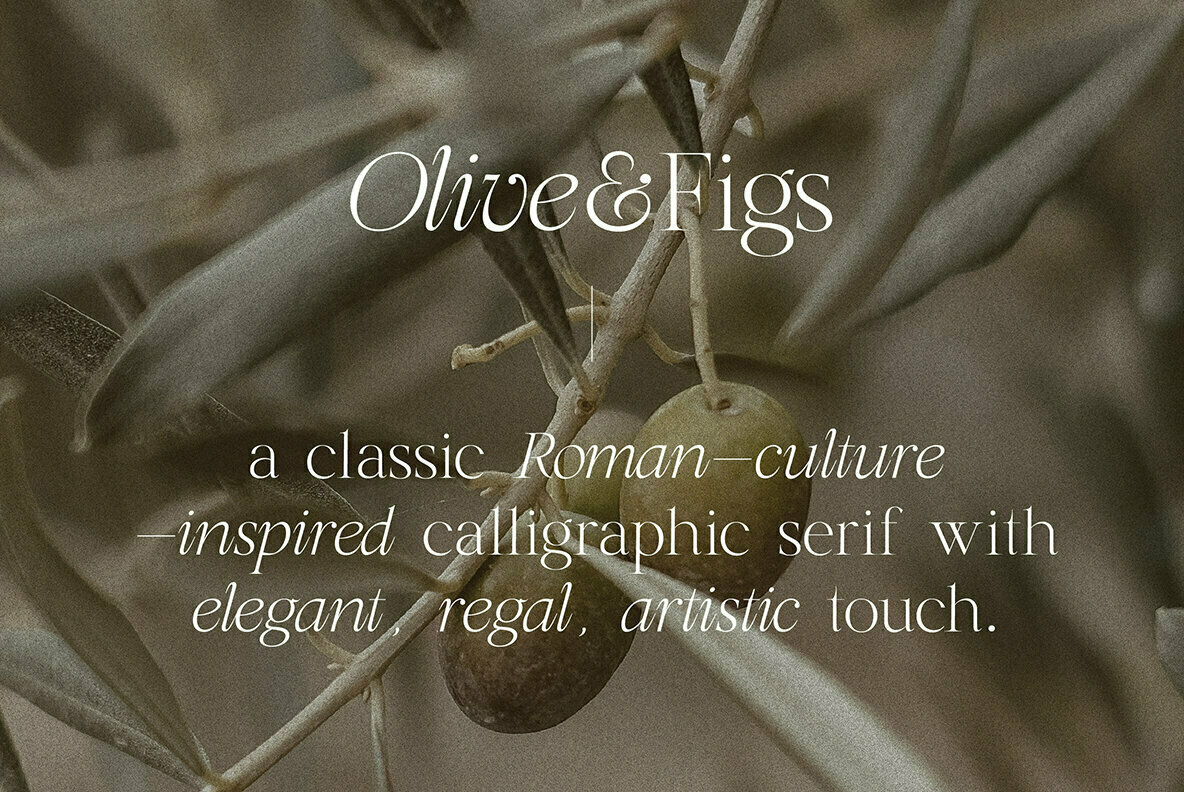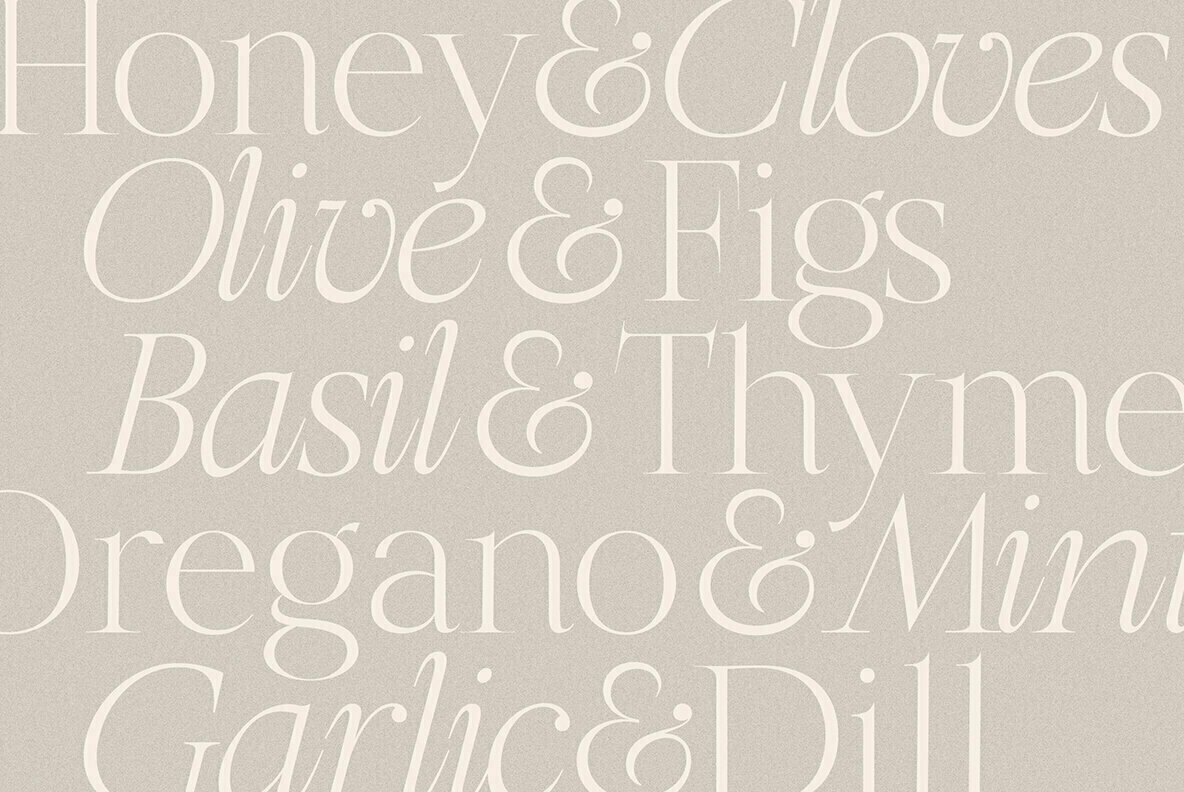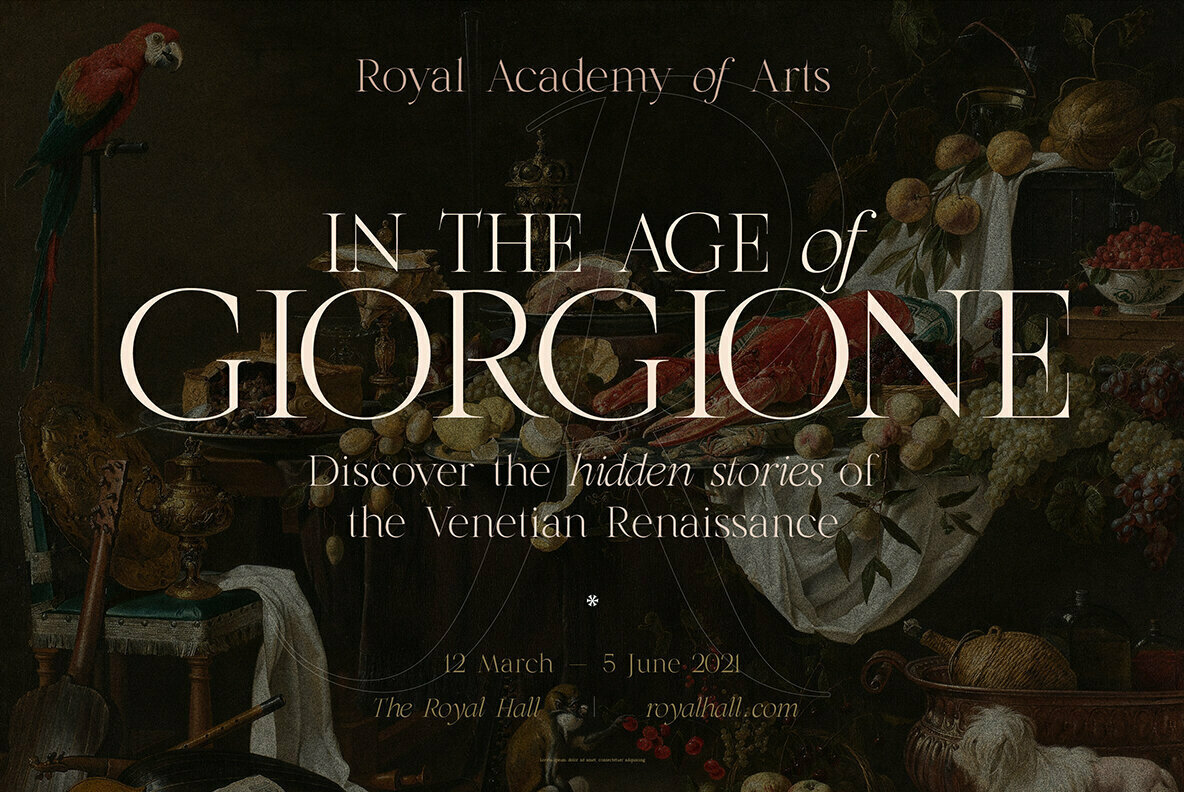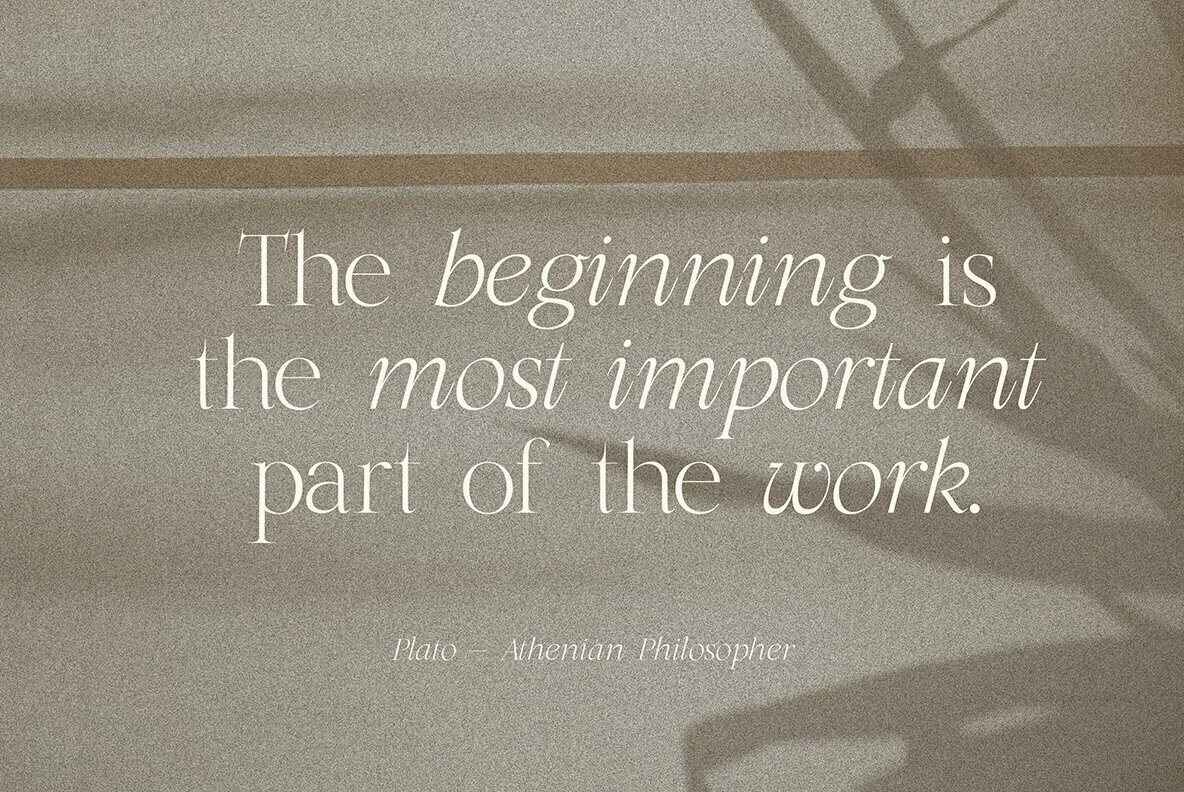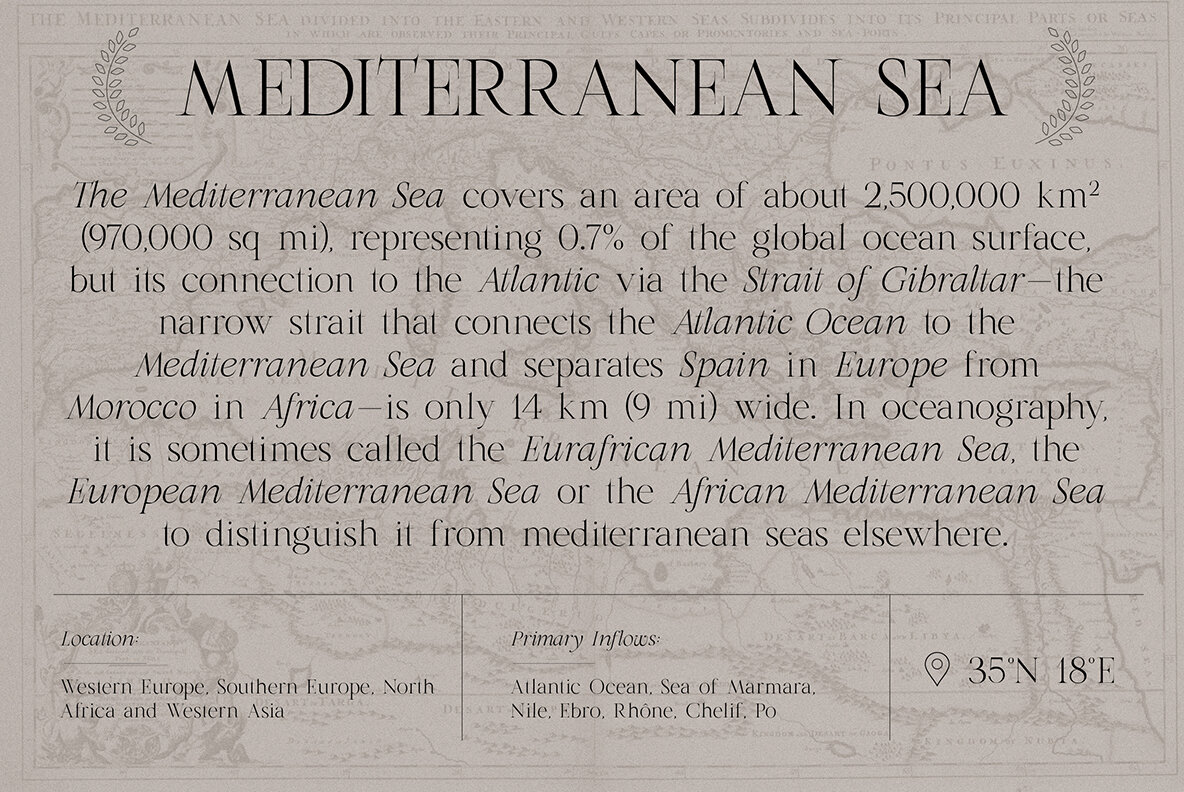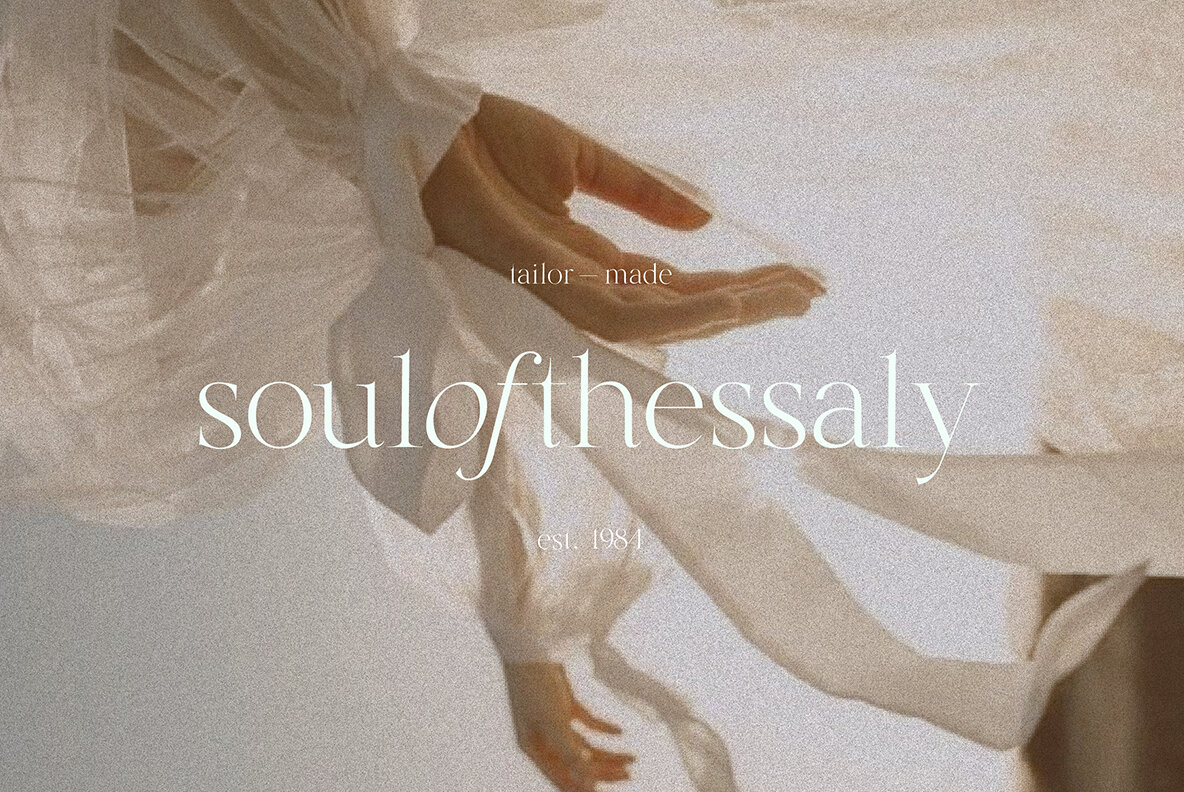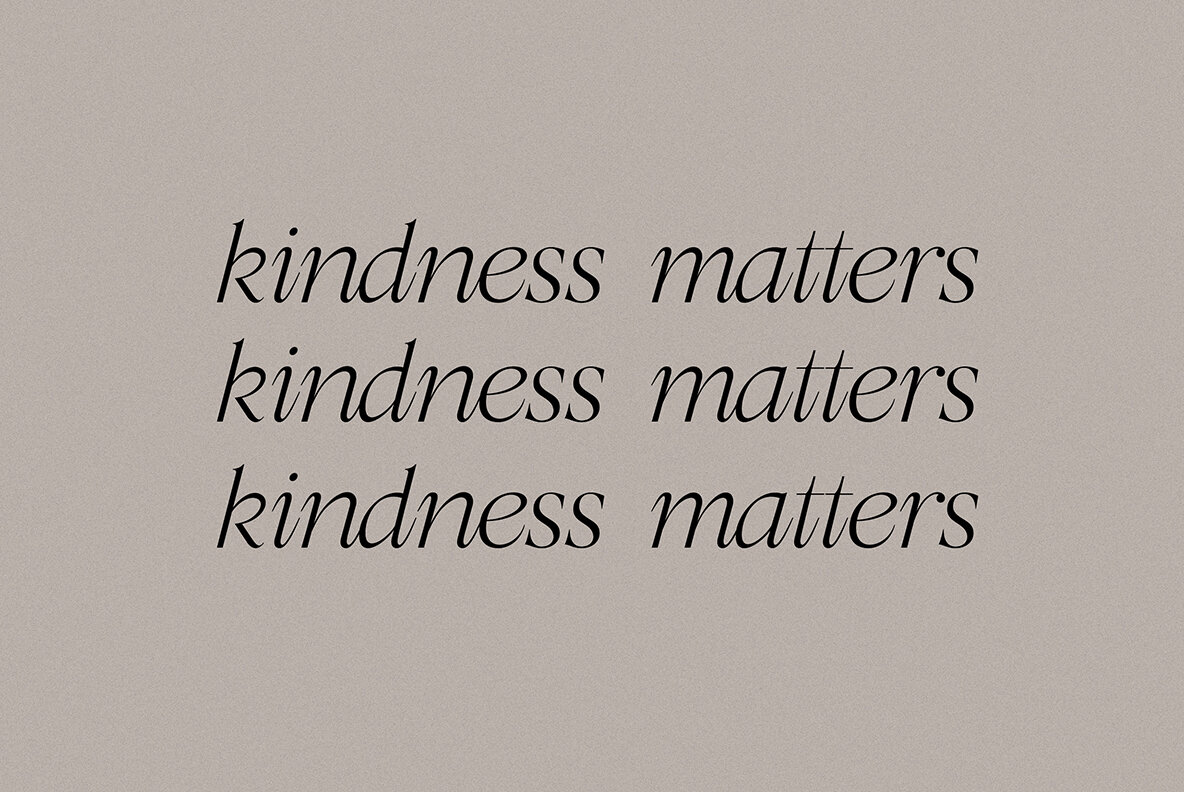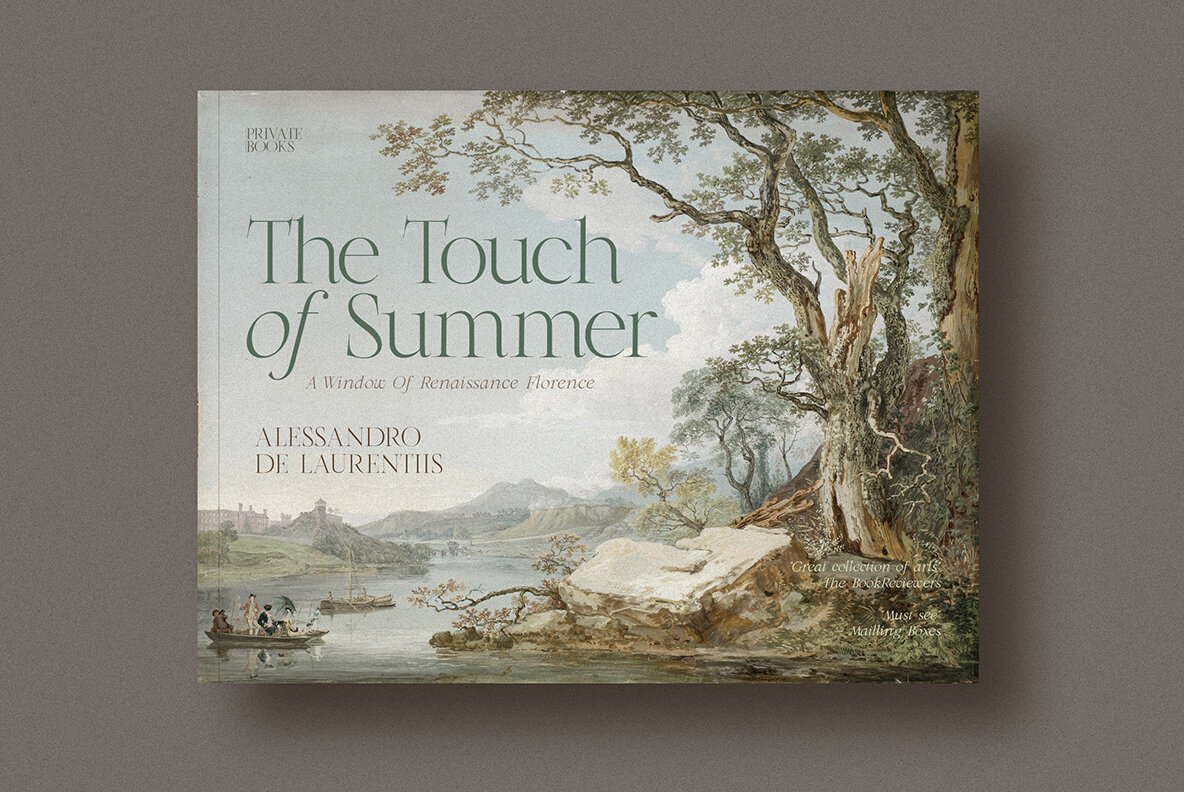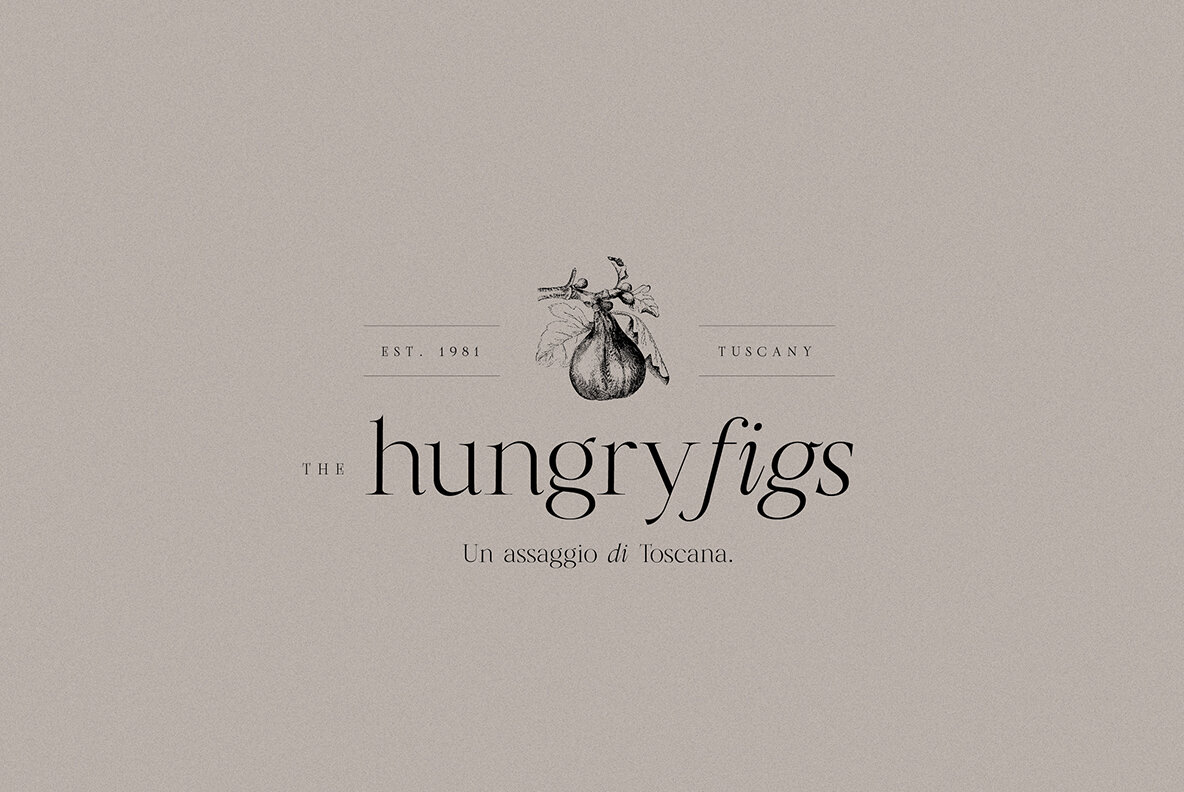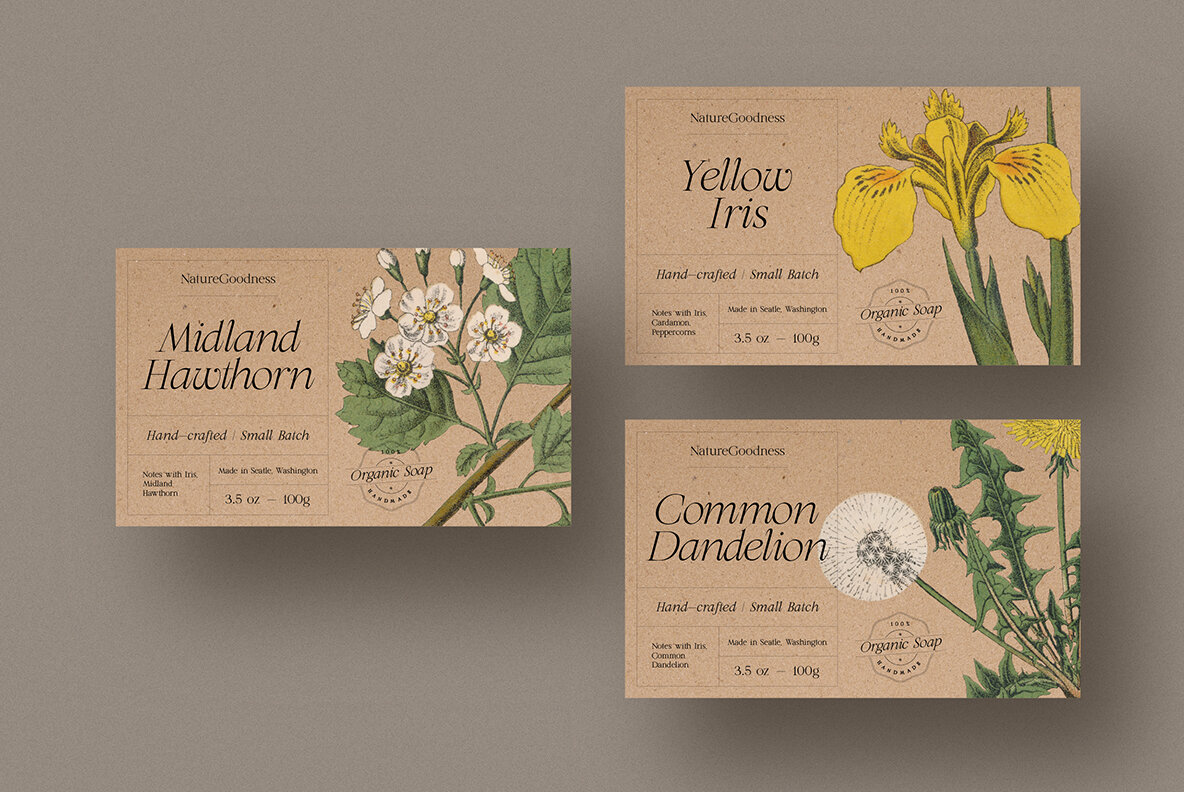
Olive and Figs Font
HV Olive and Figs Regular
HV Olive and Figs Italic
Olive & Figs - a classic Roman-culture-inspired calligraphic serif with an elegant, regal, artistic touch. Specially designed for regal, classy projects, perfectly suitable for creating elegant, simple, lifestyle designs such as logos, title, packaging, and more. 6 free logo templates.